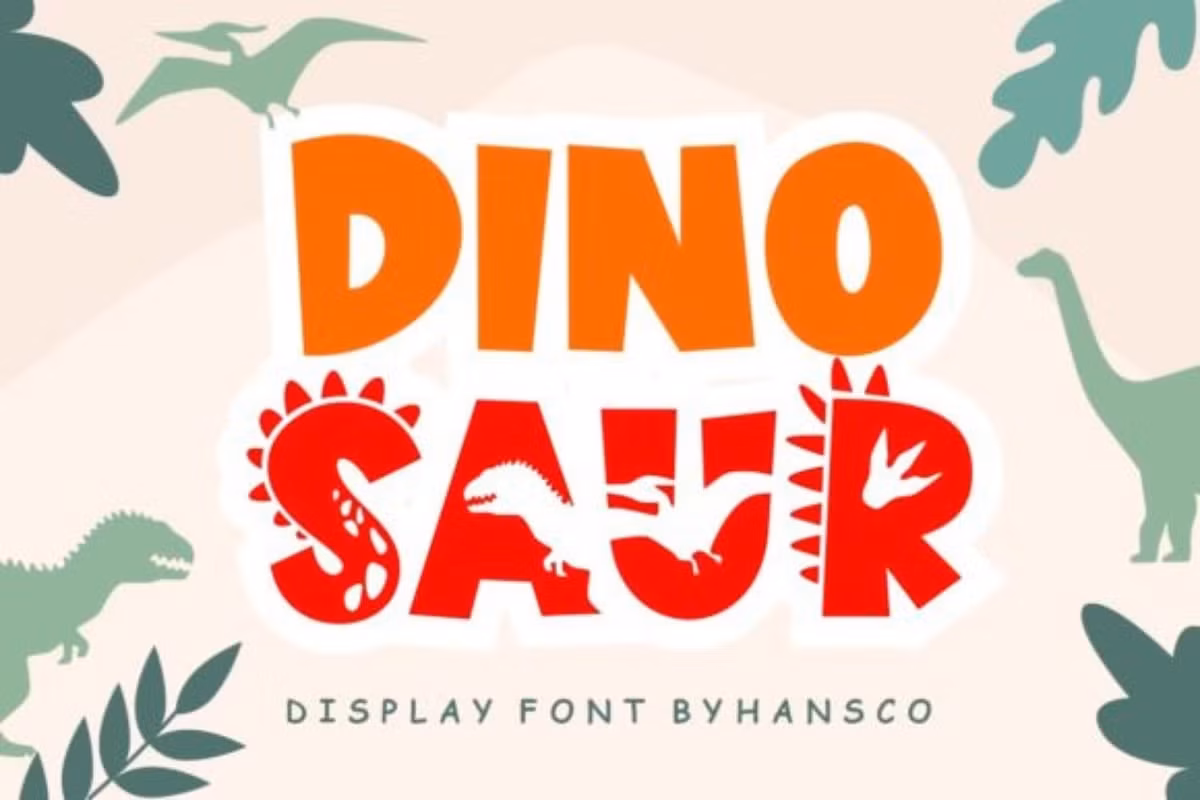
Dinosaur Font Free Download
Dinosaur Font Free Download is a fun and playful typeface designed to bring prehistoric charm to your designs. With its bold, chunky letterforms and quirky details, this font is perfect for children’s projects, posters, party invitations, logos, and any design that needs a friendly, lighthearted touch.
Whether you’re working on a kid-friendly brand, creating colorful merchandise, or crafting dinosaur-themed content, Dinosaur Font adds energy, humor, and character to your typography. It’s the perfect font for designers who love playful and adventurous themes.